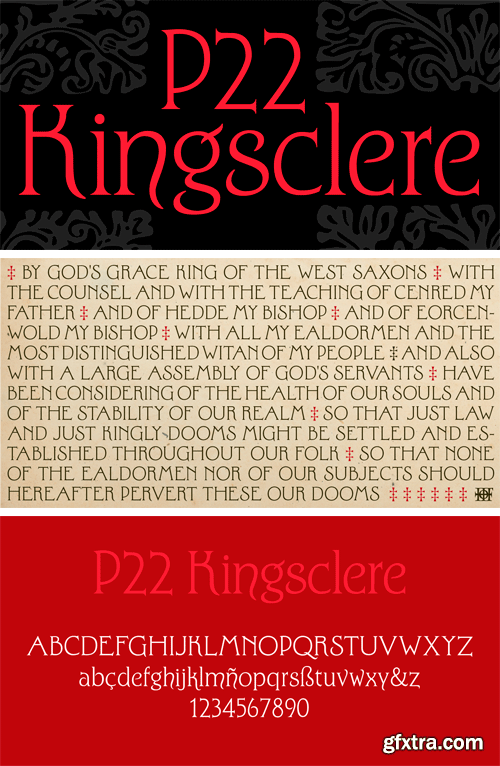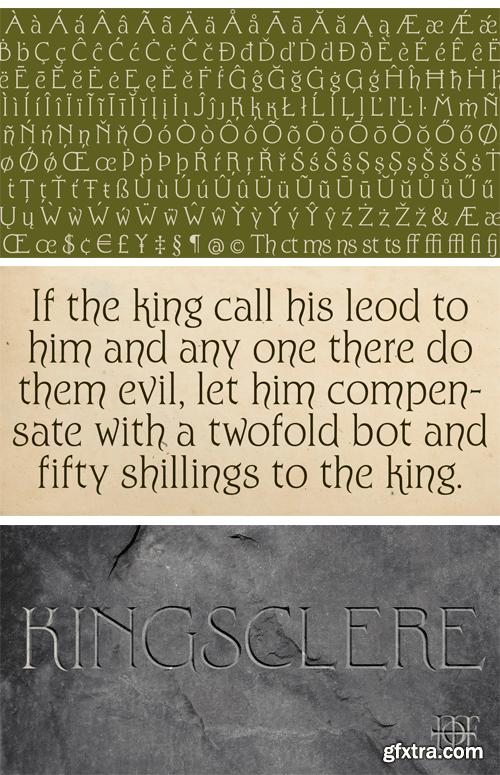
P22 Kingsclere Font
The Kingsclere font was desigend by Ted Stauanton after finding inspiration in the town of Remedios, Cuba on a 17th century Spanish tombstone inscription. These historic letterforms lend themselves to many uses where vernacular lettering from a bygone era is desired.